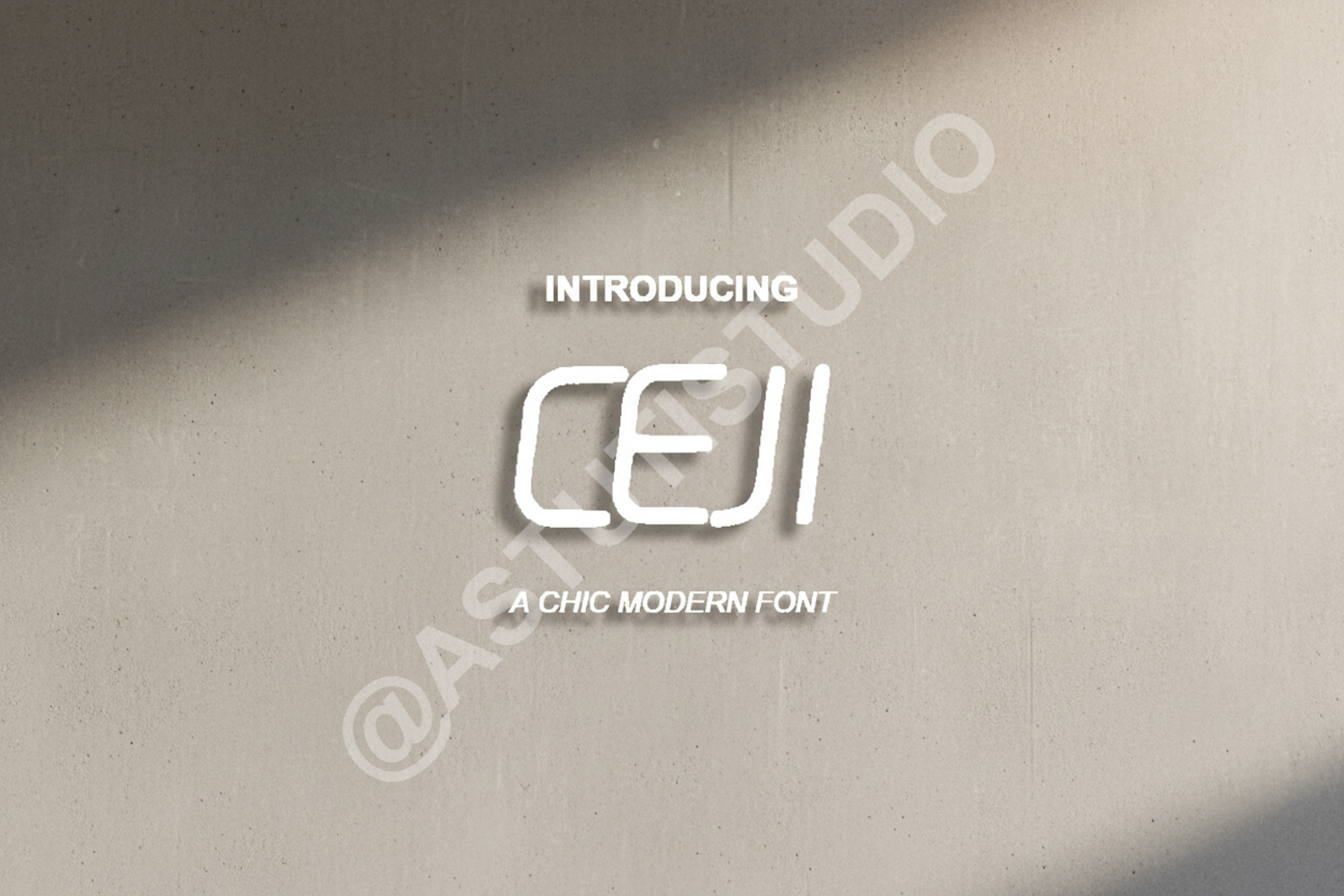
Ceji - Elegant Luxury Serif Typeface
Ceji
Elevate your design projects with Ceji, a premium serif typeface crafted for those who demand sophistication and clarity. Ceji blends timeless elegance with contemporary design elements, offering a high-end look that remains versatile across various mediums. Whether you are working on a luxury brand identity or a minimalist editorial layout, Ceji provides the perfect balance of character and legibility.
- Full Character Set (A-Z)
- Numbers and Punctuation
- Extensive Multilingual Support
- Luxury Branding and Identity: Perfect for high-end fashion and beauty brands.
- Wedding Invitations: Adds a touch of class to stationery and event signage.
- Editorial Design: Ideal for magazine headers, book covers, and digital publications.
- Product Packaging: Enhances the premium feel of labels and boxes.
- Social Media: Creates eye-catching quotes and sophisticated promotional graphics.